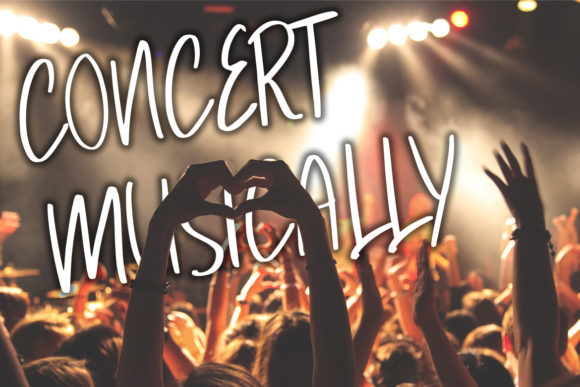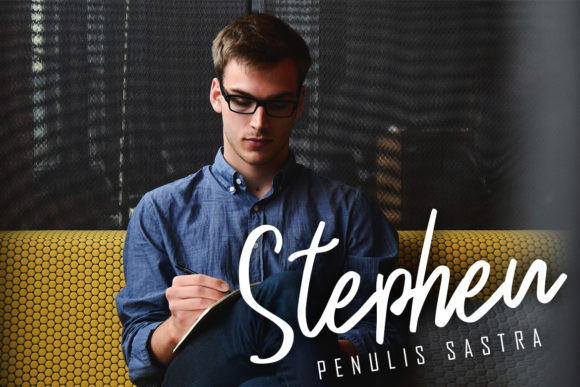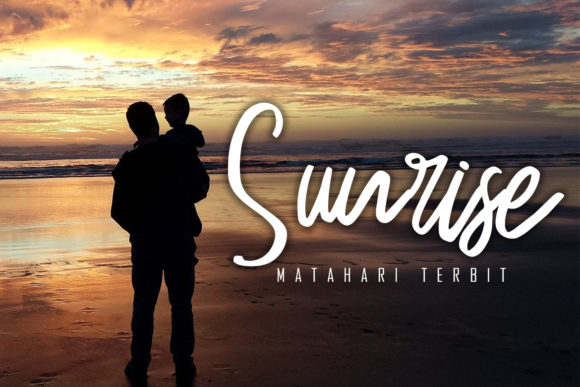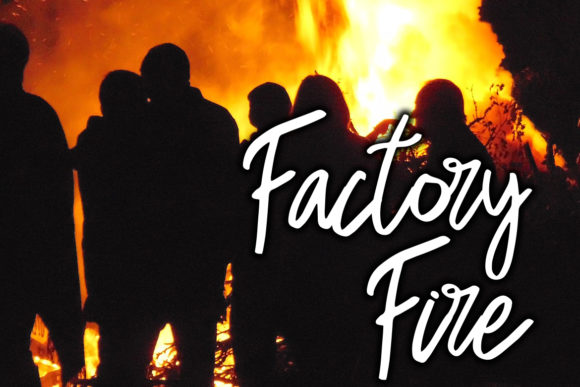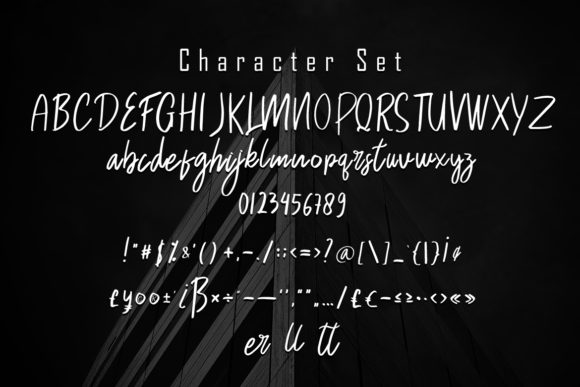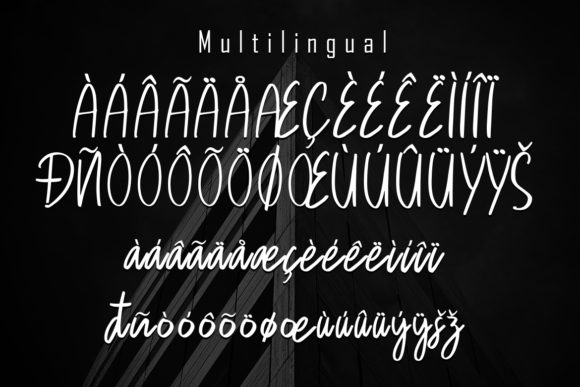
Bergly Font: Elevate Your Design with a Touch of Classic Elegance
In the world of typography, few fonts manage to strike a balance between classic sophistication and modern flair. Bergly Font is one such gem that brings its unique style to the table, making it an excellent choice for designers and crafters alike. Inspired by the timeless beauty of classic typography, Bergly injects a fresh dose of creativity into any design project, transforming it into a true masterpiece.
The Inspiration Behind Bergly
Bergly’s roots lie in the rich history of typography, where elegant serif fonts were the hallmark of classic design. However, Bergly is not just a nostalgic nod to the past; it’s a forward-thinking typeface that adapts to the needs of contemporary design. Its unique style is a blend of traditional elements with a modern twist, making it versatile enough to be used across various platforms and projects.
One of the standout features of Bergly Font is its incredible versatility. Whether you’re a social media influencer looking for fonts for Instagram that will make your posts pop, or a DIY enthusiast searching for calligraphy scripts to add a personal touch to your projects, Bergly has got you covered. Its adaptability makes it an ideal choice for a wide range of applications, from digital designs to print materials.
Transforming Creative Ideas into Art
Bergly’s true power lies in its ability to elevate any creative idea into a work of art. Its elegant lines and classic feel can add a touch of sophistication to your designs, making them stand out in a crowded digital landscape. For crafters, Bergly offers endless possibilities for personalization and customization, allowing you to add a unique flair to your DIY projects.
Why Choose Bergly Font?
- Unique Style: Bergly brings a fresh perspective to classic typography, offering a unique style that can set your designs apart.
- Versatility: From social media posts to DIY projects, Bergly’s versatility makes it suitable for a wide range of applications.
- Elegance: With its roots in classic typography, Bergly adds a touch of elegance and sophistication to any design.
- Easy to Use: Designed with the user in mind, Bergly is easy to integrate into your projects, making it accessible to both beginners and professionals.
Using Bergly for Your Design Projects
Integrating Bergly into your workflow is straightforward. Here are a few tips to get you started:
- Pair it with Other Fonts: Experiment with combining Bergly with other fonts to create interesting contrasts and hierarchies in your designs.
- Play with Sizes and Colors: Don’t be afraid to experiment with different sizes and colors to make Bergly truly pop in your designs.
- Use it for Headings and Titles: Bergly’s elegant lines make it perfect for headings and titles, adding a touch of class to your designs.
Bergly Font is more than just a typeface; it’s a tool that can transform your creative ideas into stunning works of art. With its unique blend of classic elegance and modern versatility, Bergly is set to become a favorite among designers and crafters. Whether you’re looking to elevate your social media presence or add a personal touch to your DIY projects, Bergly is the perfect choice. So, why wait? Explore the possibilities with Bergly Font today and take your designs to new heights!